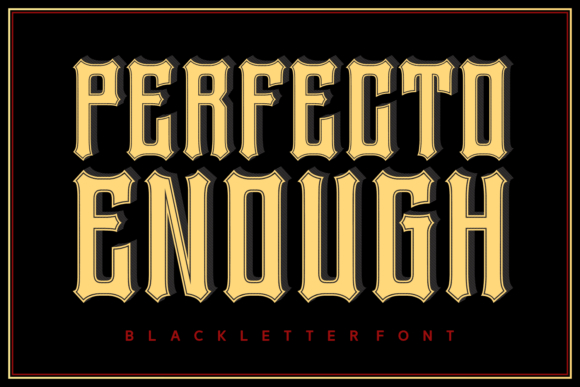
Perfecto Enough Font: Elevate Your Creations with a Timeless Tattoo-Style Blackletter Typeface
In the realm of typography, few fonts manage to capture the essence of classic, vintage aesthetics quite like Perfecto Enough. This remarkable tattoo-style blackletter font has been making waves in the design community, and for good reason. Its unique blend of traditional and modern elements makes it an incredibly versatile typeface, suitable for a wide range of applications. From logos and posters to t-shirts and product packaging, Perfecto Enough has the potential to elevate any creation with its captivating, timeless look.
What is Perfecto Enough Font?
Perfecto Enough is a meticulously crafted tattoo-style blackletter font that exudes a sense of nostalgia and sophistication. Its classic, vintage appearance is reminiscent of traditional tattoo art, with bold lines, intricate details, and a distinctive flair. This font is perfect for designers looking to add a touch of elegance and whimsy to their work.
Key Features of Perfecto Enough Font
- Classic, vintage look: Perfecto Enough boasts a timeless aesthetic that is sure to turn heads.
- Tattoo-style blackletter: This font’s unique blend of traditional and modern elements makes it perfect for a wide range of applications.
- Highly versatile: From logos and posters to t-shirts and product packaging, Perfecto Enough can be used in various contexts.
- Easy to read: Despite its ornate appearance, Perfecto Enough is surprisingly legible, making it suitable for both headlines and body text.
10 Inspiring Ways to Use Perfecto Enough Font
- Logos and branding: Create a lasting impression with a custom logo that incorporates Perfecto Enough.
- Posters and flyers: Add a touch of vintage flair to your promotional materials with this captivating font.
- Banners and signage: Perfecto Enough is perfect for creating eye-catching banners and signs that grab attention.
- T-shirts and apparel: Take your fashion designs to the next level with this stylish font.
- Advertisements and marketing materials: Stand out from the competition with Perfecto Enough’s unique, timeless look.
- Product packaging: Elevate your product’s packaging with a font that exudes sophistication and elegance.
- Headlines and titles: Use Perfecto Enough to create striking headlines and titles that demand attention.
- Invitations and event materials: Add a touch of whimsy and sophistication to your event invitations and materials.
- Social media graphics: Create engaging social media graphics that showcase your brand’s personality.
- Art and illustration projects: Perfecto Enough can be used as a creative element in art and illustration projects.
Typography Tips for Using Perfecto Enough Font
To get the most out of Perfecto Enough, consider the following typography tips:
- Experiment with font sizes: Perfecto Enough looks great in various font sizes, from large headlines to smaller body text.
- Play with font colors: Try using different font colors to add contrast and visual interest to your designs.
- Combine with other fonts: Pair Perfecto Enough with other fonts to create a unique, visually appealing typography scheme.
- Pay attention to spacing: Make sure to adjust the spacing between letters and lines to ensure optimal readability.
Finding Design Inspiration with Perfecto Enough Font
Sometimes, all it takes is a little inspiration to spark creativity. Here are some design ideas to get you started:
- Browse design communities: Websites like Behance, Dribbble, and Pinterest are great resources for design inspiration.
- Explore vintage designs: Look to classic posters, advertisements, and typography for inspiration.
- Experiment with different styles: Try combining Perfecto Enough with other fonts, colors, and design elements to create something unique.
In conclusion, Perfecto Enough Font is a remarkable tattoo-style blackletter typeface that can elevate any creation with its classic, vintage look. Its versatility, legibility, and timeless aesthetic make it an excellent choice for designers looking to add a touch of sophistication and whimsy to their work. Whether you’re creating logos, posters, t-shirts, or product packaging, Perfecto Enough is sure to make a lasting impression.